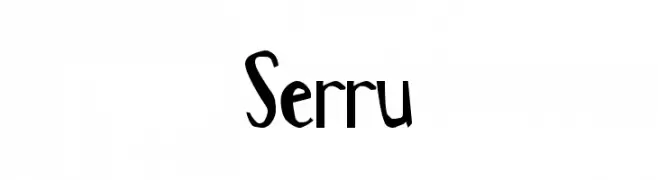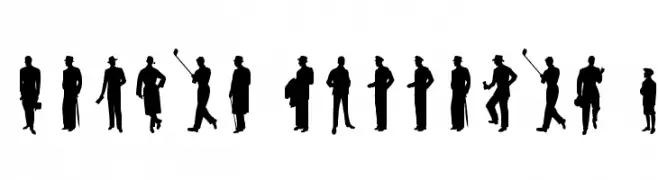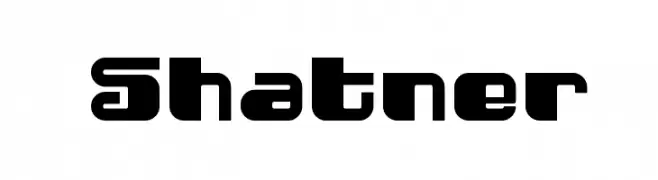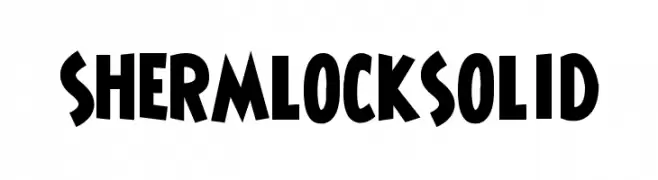
A playful and quirky font with bold, slightly condensed uppercase letters and whimsical lowercase letters.
A modern, digital-inspired font with geometric, line-based characters.
A bold, abstract font with futuristic and geometric design elements.
A bold, modern font with a geometric and striking design.
A dynamic, shattered font with jagged edges and a fragmented appearance.
A bold, playful font with thick outlines and a cartoonish style.
A festive, decorative font featuring Santa Claus illustrations with each character.
A fantasy-inspired serif font with sharp, angular serifs and ornate details.